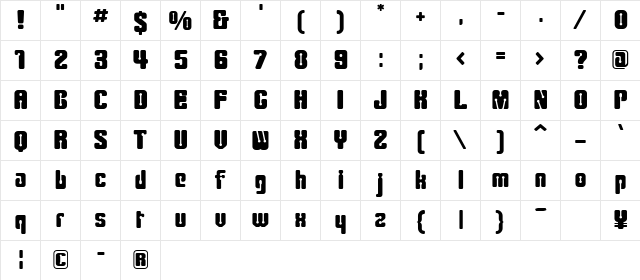
Clipe Bold Font Preview
Clipe Bold
Design Context for Clipe Typeface
Clipe is a composed and adaptable typeface that performs quietly and consistently across a wide range of design contexts. The heavy weight commands attention and anchors typographic hierarchies.